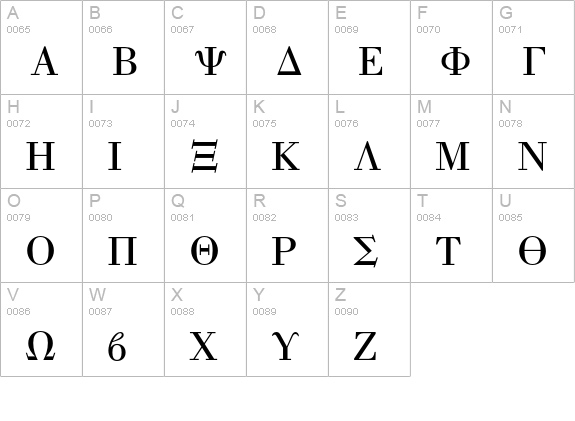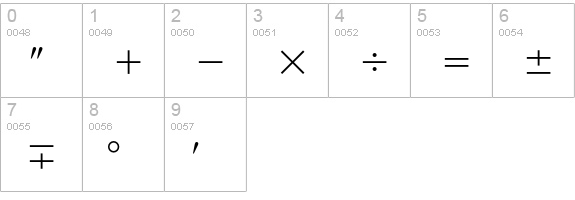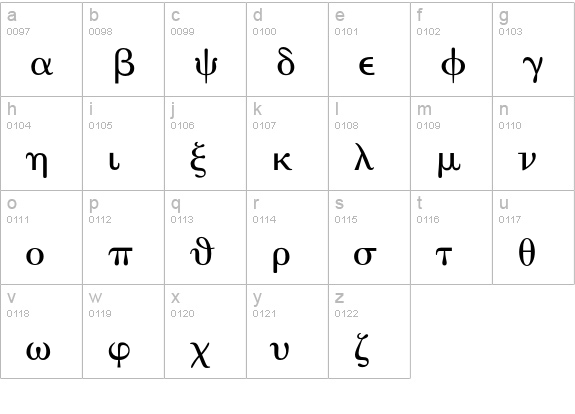
Introducing Mathematical Pi 1 font, the ultimate tool for all your mathematical and scientific endeavors. This remarkable font is not only visually stunning but also highly functional, making it an essential asset for any mathematician, scientist, or enthusiast. Mathematical Pi 1 font boasts a sleek and modern design that effortlessly captures the elegance and precision of mathematical symbols. Each character is meticulously crafted to ensure optimal legibility and clarity, allowing for seamless integration into any project or document. But what truly sets Mathematical Pi 1 font apart is its accessibility. We believe that knowledge should be freely available to all, which is why this incredible font is offered completely free of charge. You can easily download Mathematical Pi 1 font at FontsMarket.com, your one-stop destination for premium quality fonts. Whether you're working on complex mathematical equations, creating scientific illustrations, or simply want to add a touch of sophistication to your typography, Mathematical Pi 1 font is the perfect choice. Its versatility and versatility make it an invaluable resource for students, professionals, and hobbyists alike. Join the countless individuals who have already embraced the power of Mathematical Pi 1 font and unlock a world of possibilities. From research papers to educational materials, this font will elevate your work to new heights, enabling you to communicate complex concepts with ease and precision. Don't miss out on this incredible opportunity to enhance your mathematical and scientific endeavors. Download Mathematical Pi 1 font today at FontsMarket.com and experience the transformative power of this exceptional font.